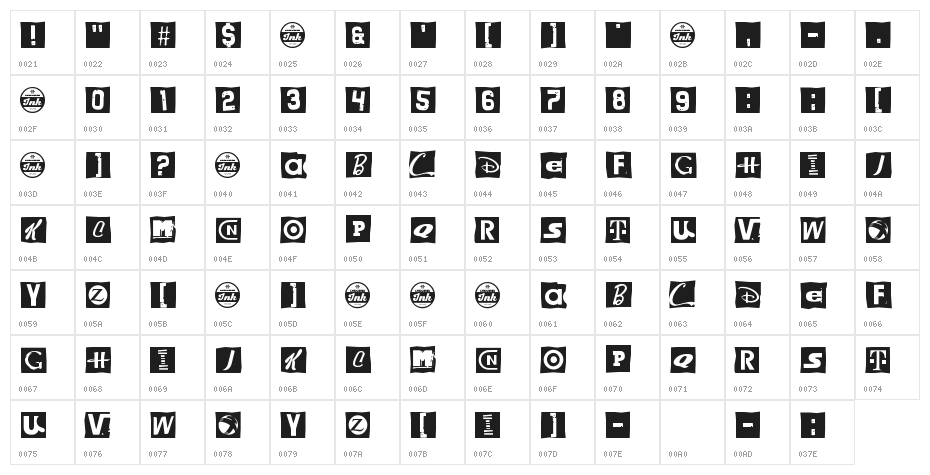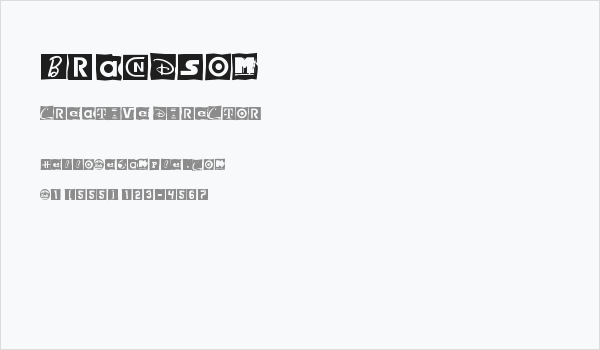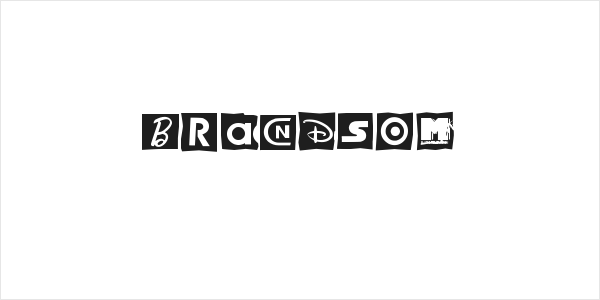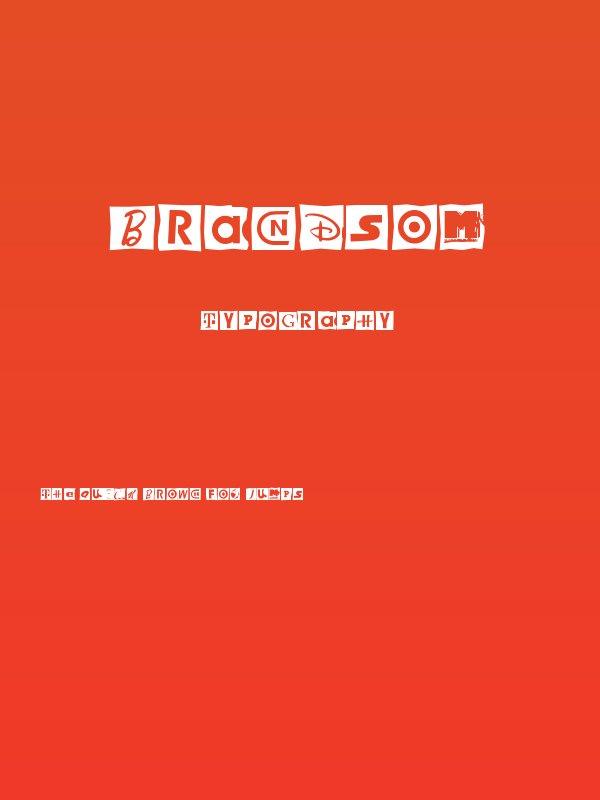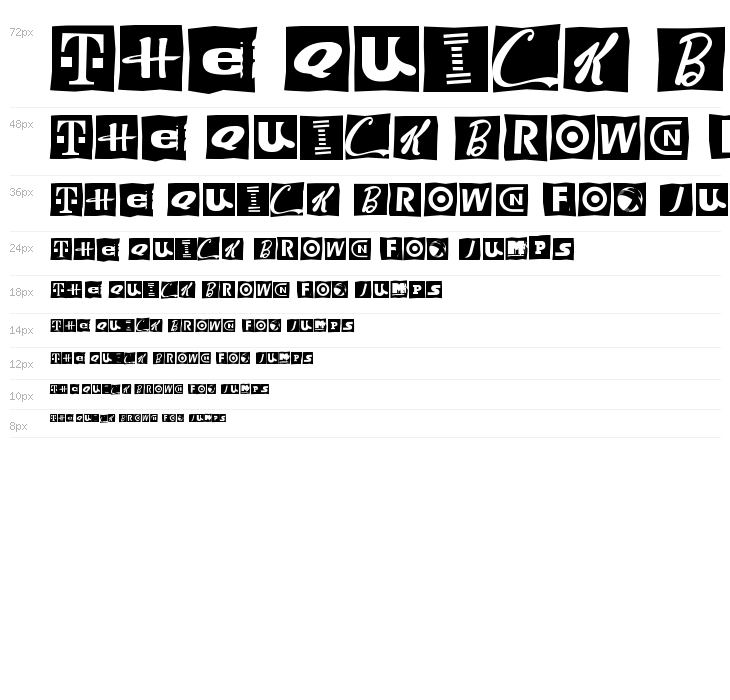
Brandsom Font
Brandsom Description
This font features a unique and eclectic design, with each character appearing as if it has been cut from different sources and pasted together. The letters are enclosed in individual black squares, creating a bold and striking visual impact. The style is reminiscent of ransom notes, with a mix of serif, sans-serif, and decorative elements. Each character is distinct, with varying levels of detail and embellishment, contributing to a chaotic yet intriguing aesthetic. The font includes both uppercase and lowercase letters, numbers, and a selection of special characters, all maintaining the same cut-and-paste style.
| Proposed Projects | Ideal for creative projects such as posters, album covers, or any design requiring a bold, unconventional typeface. |